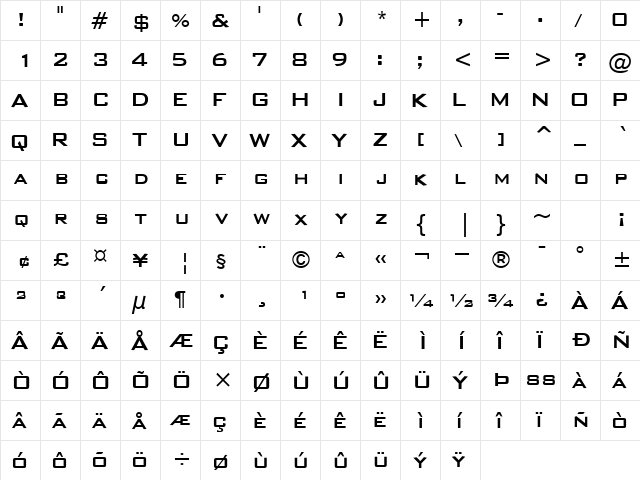
FortisSCapsSSK Regular
Design Context for FortisSCapsSSK Typeface
FortisSCapsSSK offers clean, dependable letterforms without strong stylistic allegiance, making it a practical choice for designers who need flexibility.